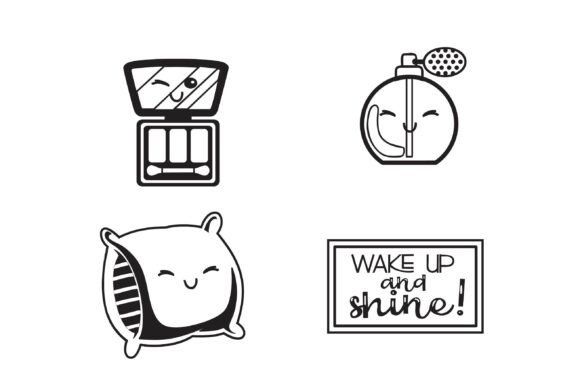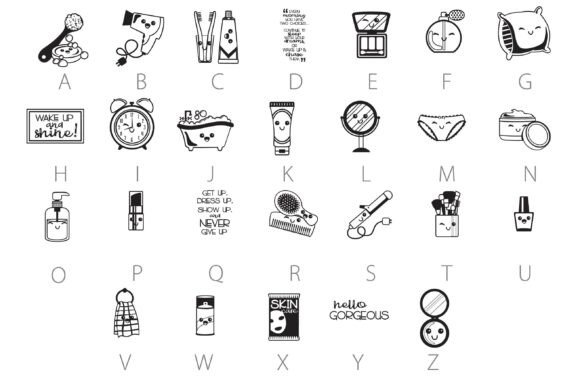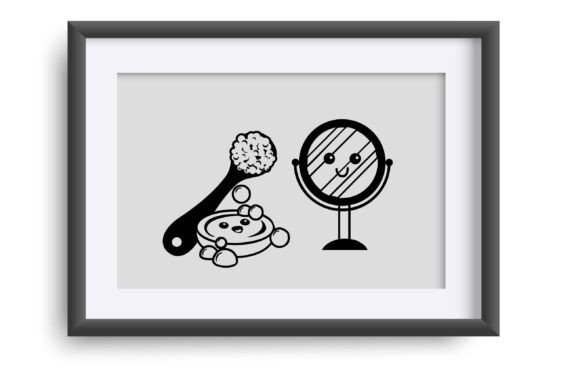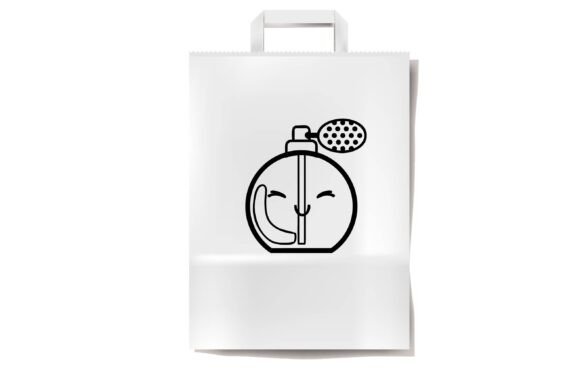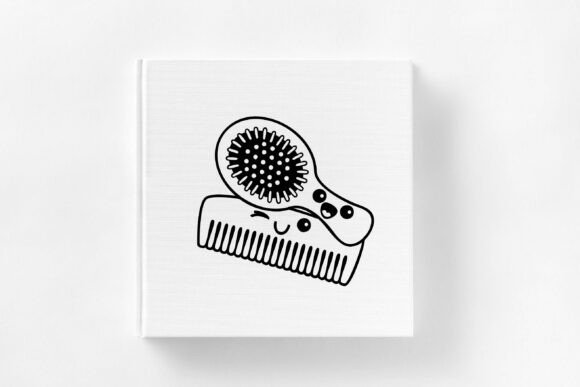
Good Morning Too Font: Elevate Your Projects with Kawaii Morning Elements
Are you tired of using the same old fonts and symbols in your design projects? Look no further than the Good Morning Too Dingbat Font, featuring 26 adorable kawaii-style morning primping elements. This font is a game-changer for designers and crafters, providing a quick and easy way to add a touch of personality and whimsy to any creative work.
The Power of Dingbat Fonts
Dingbat fonts are a designer’s secret weapon, offering a vast array of symbols, icons, and graphics that can be used to bring flair, fun, and functionality to any project. Unlike traditional fonts, dingbats are composed of mini graphics that can be used to add visual interest and personality to a wide range of designs. From invitations and packaging to social media graphics and newsletters, dingbat fonts are the perfect solution for designers looking to elevate their work.
What is Good Morning Too Font?
The Good Morning Too Font is a unique and versatile dingbat font that features 26 kawaii-style morning primping elements. Each element is carefully designed to be scalable, stylish, and easy to use, making it perfect for a wide range of design projects. Whether you’re working on invitations, labels, tags, or merchandise, this font delivers high-quality, vector-quality icons that can be used in both print and digital formats.
Key Features of Good Morning Too Font
The Good Morning Too Font has several key features that make it a must-have for designers and crafters:
- Easy to use: Simply type a letter to generate a unique graphic, making it easy to incorporate into any design project.
- Vector-quality icons: Perfect for print or digital use, these icons are scalable and can be used in a wide range of resolutions.
- Consistent line weight and style: The font is designed with a consistent line weight and style, ensuring a cohesive look throughout your design.
Benefits of Using Dingbat Fonts
Dingbat fonts like Good Morning Too offer a range of benefits for designers and crafters, including:
- Time-saving: Dingbat fonts provide ready-to-use graphics that can save you time and simplify your design process.
- Increased creativity: With a wide range of symbols, icons, and graphics at your fingertips, dingbat fonts can help spark creativity and inspire new design ideas.
- Consistency: Dingbat fonts ensure consistency throughout your design, making it easy to create a cohesive look and feel.
Using Good Morning Too Font in Your Design Projects
The Good Morning Too Font can be used in a wide range of design projects, including:
- Invitations: Add a touch of personality and whimsy to your invitations with the Good Morning Too Font.
- Packaging: Use the font to create eye-catching packaging that stands out on store shelves.
- Social media graphics: Add a pop of color and personality to your social media graphics with the Good Morning Too Font.
- Newsletters: Use the font to create visually appealing newsletters that engage your readers.
- Labels, tags, and merch: The Good Morning Too Font is perfect for creating labels, tags, and merchandise that showcase your brand’s personality.
The Good Morning Too Font is a versatile and fun dingbat font that can elevate your design projects instantly. With its 26 kawaii-style morning primping elements, this font offers a quick and easy way to add personality and whimsy to any creative work. Whether you’re a designer, crafter, or DIY enthusiast, the Good Morning Too Font is a must-have for anyone looking to take their designs to the next level.